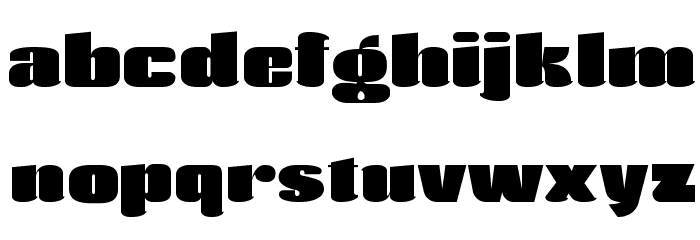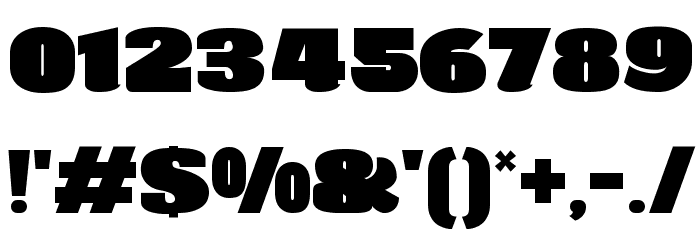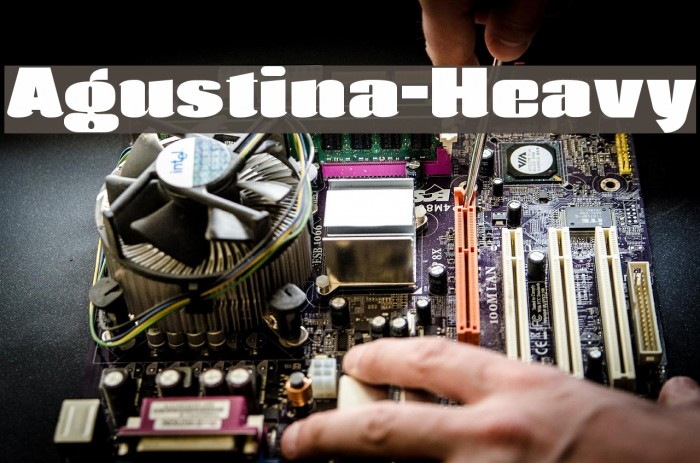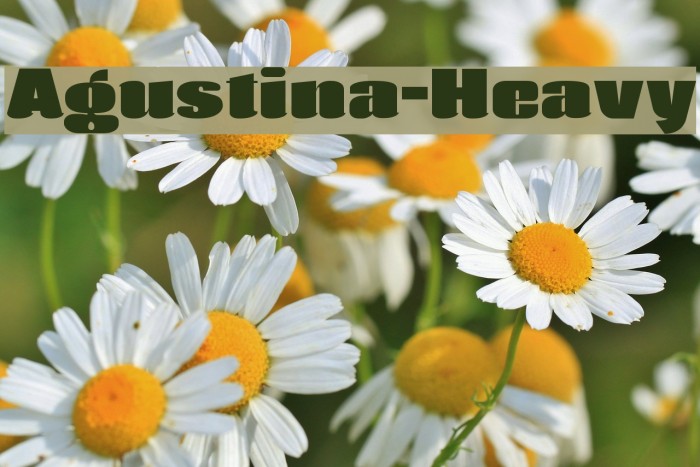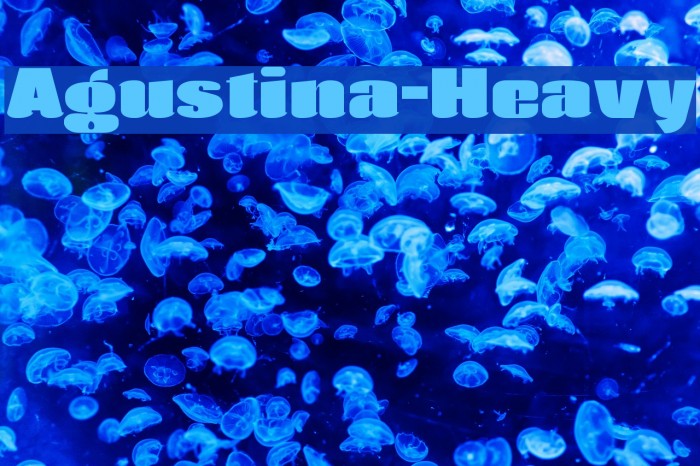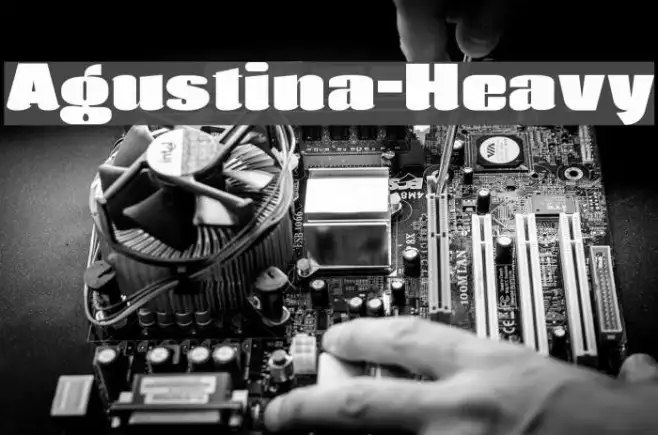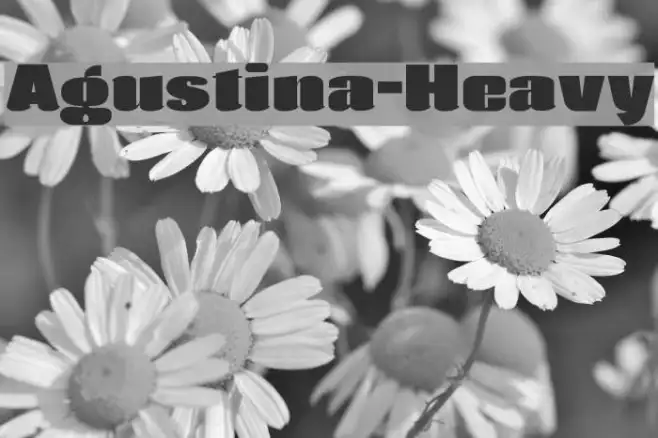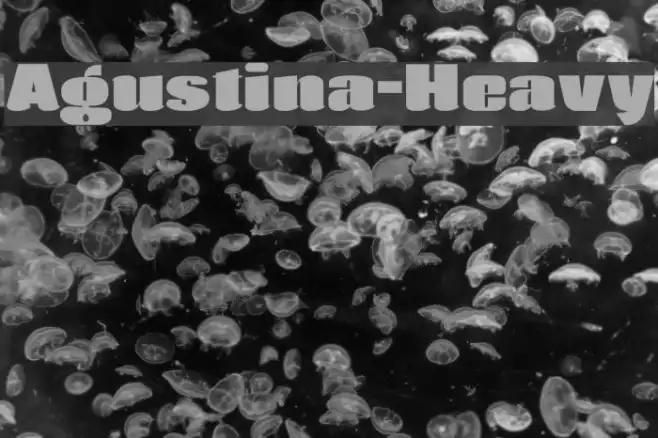
Agustina-Heavy Font
This font is characterized by its bold and heavy appearance, making it stand out with a strong presence. The letters are thick and rounded, providing a sense of stability and impact. The uppercase and lowercase letters maintain a consistent weight, contributing to a cohesive look. The numbers and special characters follow the same bold style, ensuring uniformity across all elements. The font's design is modern and assertive, suitable for making statements and capturing attention.
A bold, heavy font with a modern and impactful design.
- Proposed Projects: Ideal for headlines, posters, branding materials, and any project requiring a strong visual impact.